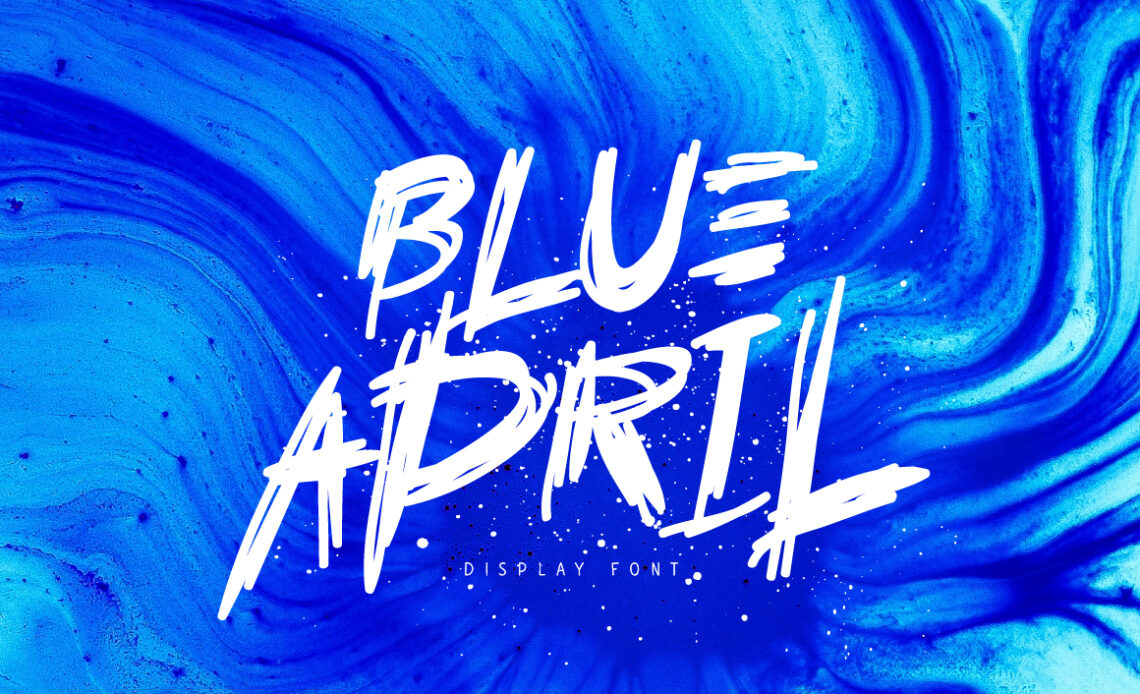
Get ready to add a dash of boldness and character to your creative projects with Blue April Font, a captivating display font that spells enchantment from the first glance! This all-caps font is not just a collection of letters; it's an artistic masterpiece, each character brimming with personality and energy. With its edgy vibe and sense of urgency, Blue April Font is the perfect choice for designers seeking to make a statement. Unleash your creativity and let your designs shine with Blue April Font.
Journey into the captivating world of Blue April Font, a display font that will ignite your imagination and elevate your designs to new heights. Designed by the talented ChekArt, Blue April Font is a fusion of art and technology, a font that dances off the page with its playful textures and sharp angles. Its bold presence demands attention, making it ideal for headlines and displays that crave impact. Whether you're working on a modern or hip design, Blue April Font will add an unforgettable touch.
Dive into a world of endless possibilities with Blue April Font. Its versatility knows no bounds, adapting seamlessly to a myriad of creative endeavors. From eye-catching logos and branding materials to captivating social media posts and website designs, Blue April Font will transform your projects into visual masterpieces. Experience the thrill of creating designs that resonate with your audience, designs that leave a lasting impression. With Blue April Font, your creativity has no limits!
Don't settle for ordinary fonts; embrace the extraordinary with Blue April Font. Its unique charm will captivate your audience, drawing them into your designs and leaving them spellbound. Experience the joy of creating designs that speak volumes, designs that evoke emotions and create connections. With Blue April Font, you hold the key to unlocking a world of creative possibilities. Unleash your imagination and let your designs soar to new heights with Blue April Font, the font that will transform your creative visions into reality.